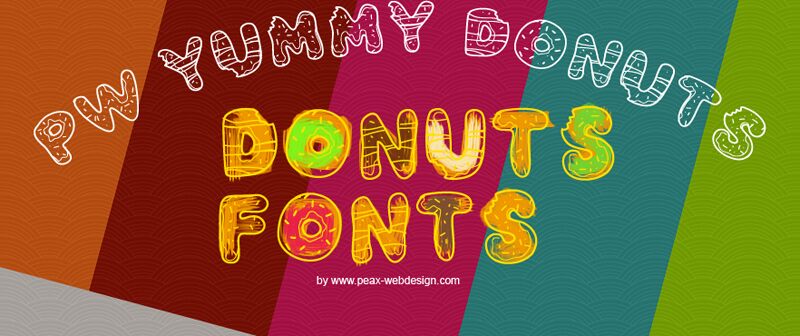
PW Yummy Donuts by Peax Webdesign is a free cartoon display font. Its plump, uneven capitals have softly rounded outer edges and resemble iced pastries, with sprinkle marks scattered across the broad surfaces and frosting-like inner shapes or striped bands changing the decoration from letter to letter.
Bakeries and family-focused food brands will find it especially apt for colorful packaging, party menus, and event posters centered on a cheerful dessert theme. The lettering can become part of the confectionery artwork itself, making it a natural fit for children's baking activity sheets and sweet-shop graphics.